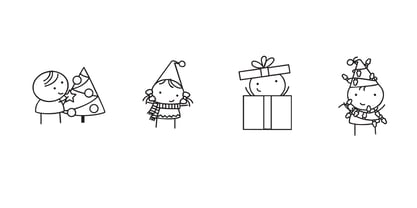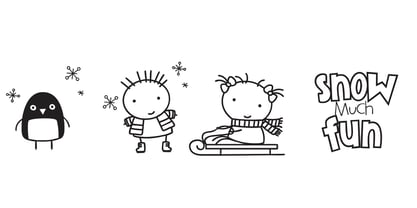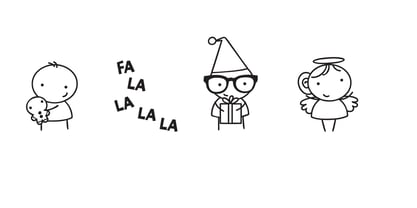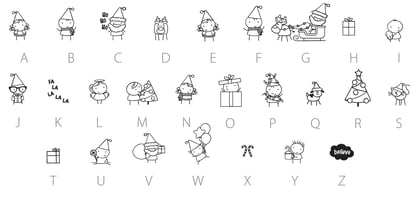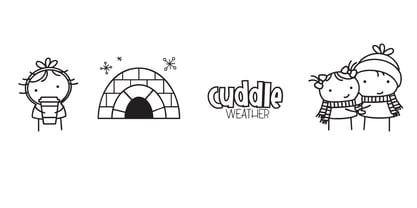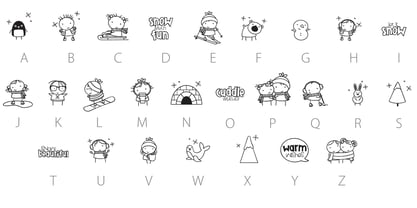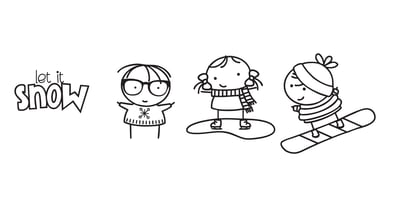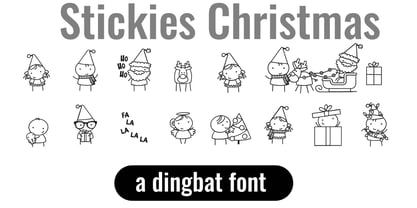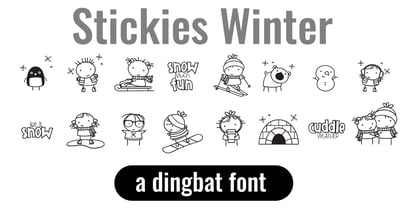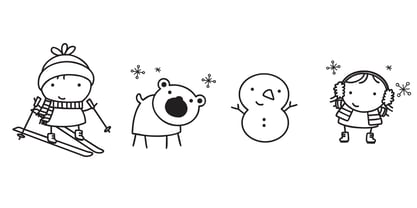
DB Stickies
por Illustration Ink
La familia tipográfica DB Stickies fue diseñada por Illustration Ink y publicada por Illustration Ink. DB Stickies contiene 2 estilos y opciones de paquete familiar. Más información sobre esta familia
Unlock endless creativity with two perfectly coordinated fonts! There are two dingbat fonts in this bundle, both featuring the character of the perfect Christmas story and ornaments too. Tired of spending hours searching for the perfect icons and graphics? Our dingbat fonts put dozens of cohesive, scalable designs at your fingertips. Simply install the font and type a letter to produce a pre-made image. From charming seasonal icons for holiday cards to intricate frames for your invitations, these fonts let you create stunning designs for vinyl cutting, paper crafts, planners, and more. What you'll get with each purchase: A complete set of high-quality graphics, all designed to work beautifully together. Instant access to the designs directly from your cutting or design software. The ability to cut, sketch, and print the designs with ease. A cost-effective way to build your creative asset library without buying individual clip art files.